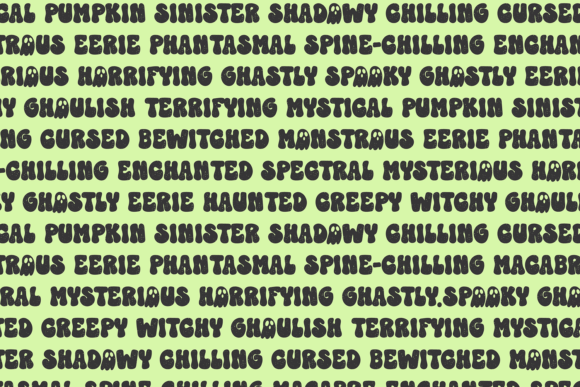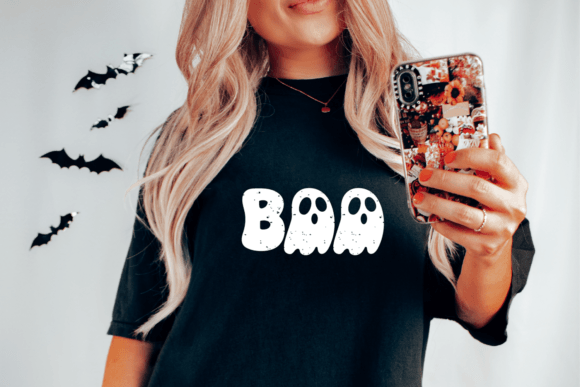
Unleash the Spooky Charm with Ghost Magic Font
Are you a designer, crafter, or DIY enthusiast looking for a font that can add a touch of magic to your projects? Look no further than the Ghost Magic Font! This bold and eye-catching font is perfect for creating titles, signs, and other visual elements that need to stand out and grab attention. In this article, we’ll explore the unique features of Ghost Magic Font and how you can use it to add a spooky or magical feel to your designs.
The Unique Features of Ghost Magic Font
Ghost Magic Font is a bold and playful font with thick, strong letters that are sure to make a statement. Its unique design gives it a spooky or magical feel, making it perfect for projects that require a touch of whimsy or eeriness. The font’s bold style ensures that it stands out from the crowd, making it ideal for titles, headings, and signs.
What Makes Ghost Magic Font So Versatile?
One of the things that sets Ghost Magic Font apart is its versatility. It can be used for a wide range of projects, from Halloween-themed designs to fantasy-inspired crafts. The font’s playful yet bold style makes it perfect for:
• Titles and headings: Add a touch of magic to your titles and headings with Ghost Magic Font.
• Signs and posters: Create eye-catching signs and posters that are sure to grab attention.
• Invitations and cards: Add a spooky or magical touch to your invitations and cards.
• Craft projects: Use Ghost Magic Font to add a personal touch to your craft projects, such as scrapbooking, journaling, and more.
Tips for Using Ghost Magic Font
Here are some tips for getting the most out of Ghost Magic Font:
• Experiment with different colors: Ghost Magic Font looks great in a range of colors, from bold and bright to muted and pastel.
• Mix and match: Combine Ghost Magic Font with other fonts to create a unique and eye-catching design.
• Play with textures: Add texture to your design by layering Ghost Magic Font over a background image or texture.
• Keep it simple: Don’t be afraid to keep your design simple and let Ghost Magic Font be the star of the show.
Who Can Benefit from Ghost Magic Font?
Ghost Magic Font is perfect for a wide range of designers, crafters, and DIY enthusiasts, including:
• Graphic designers: Add a touch of magic to your designs with Ghost Magic Font.
• Crafters: Use Ghost Magic Font to add a personal touch to your craft projects.
• Scrapbookers: Create eye-catching titles and headings with Ghost Magic Font.
• Journalers: Add a spooky or magical touch to your journal entries with Ghost Magic Font.
Font Name Ghost Magic Font
Author blushfontco
In conclusion, Ghost Magic Font is a bold and eye-catching font that is perfect for designers, crafters, and DIY enthusiasts looking to add a touch of magic to their projects. Its unique design and versatile style make it perfect for a wide range of projects, from titles and signs to invitations and craft projects. With its spooky or magical feel, Ghost Magic Font is sure to cast a spell on your audience.